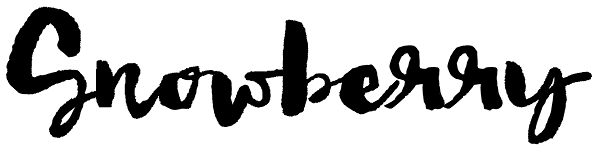
Snowberry
Meet Snowberry... A modern, hand-painted brushed font family for projects needing that effortless, yet convincingly hand-painted feel. Snowberry has two sets of uppercase letterforms and two varied personalities. Use the Snowberry Destroyed font to...
Snowberry Alternate Capitals
Snowberry Destroyed
Snowberry Ornaments